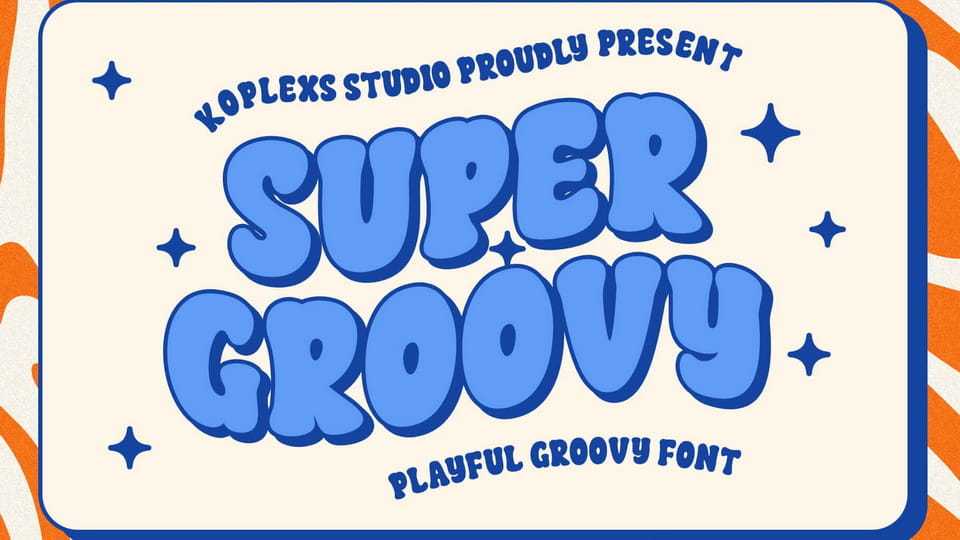
Download Super Groovy font, a bold, playful groovy typeface inspired by the funky retro vibes of the 60s and 70s. With its soft bubble font shapes and thick curves, it’s perfect for creating fun and eye-catching designs.
Designer: Koplexs Studio